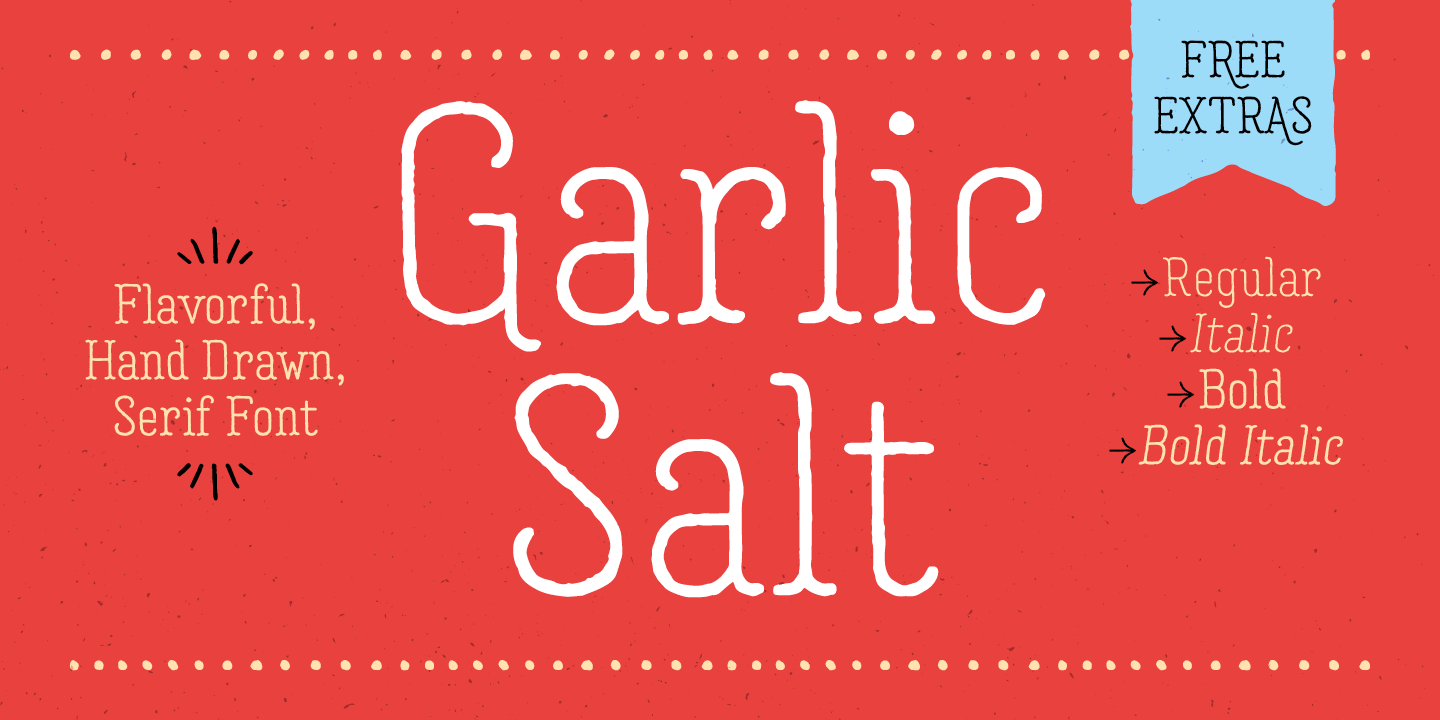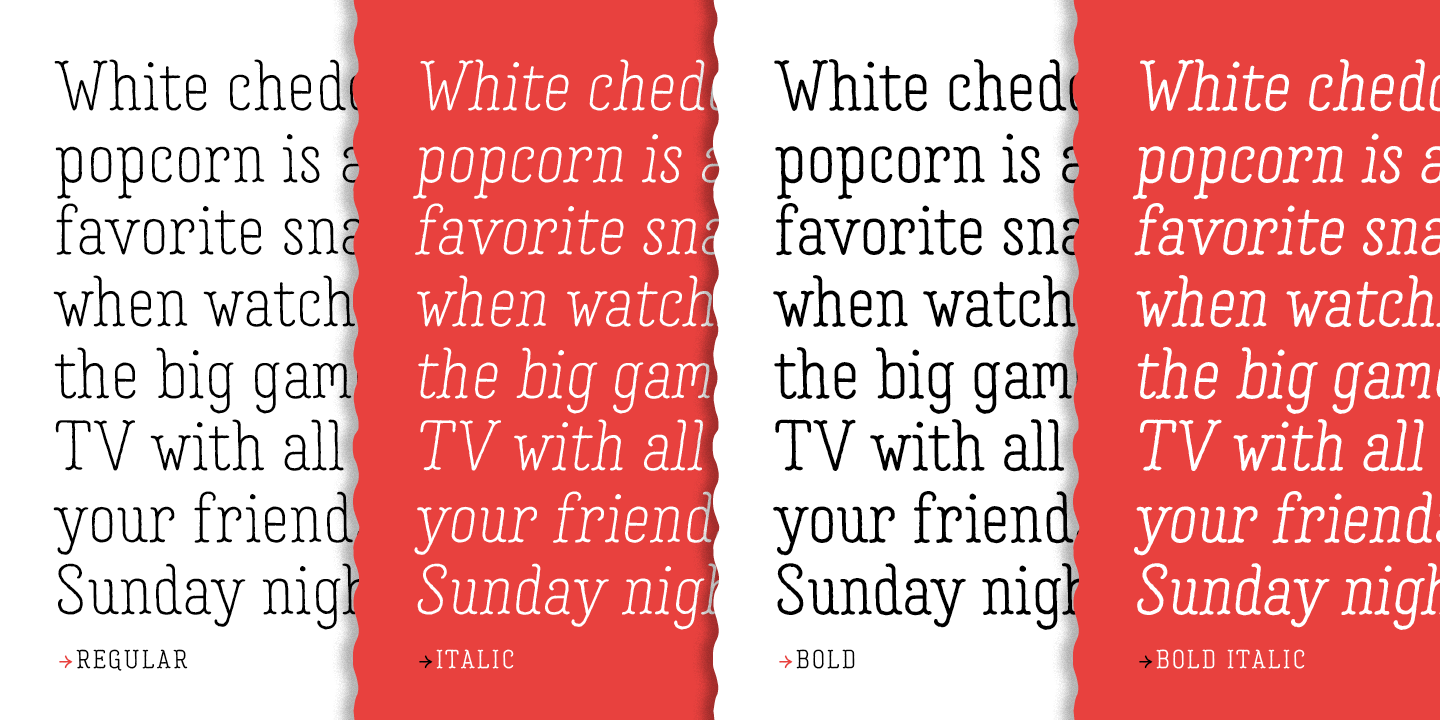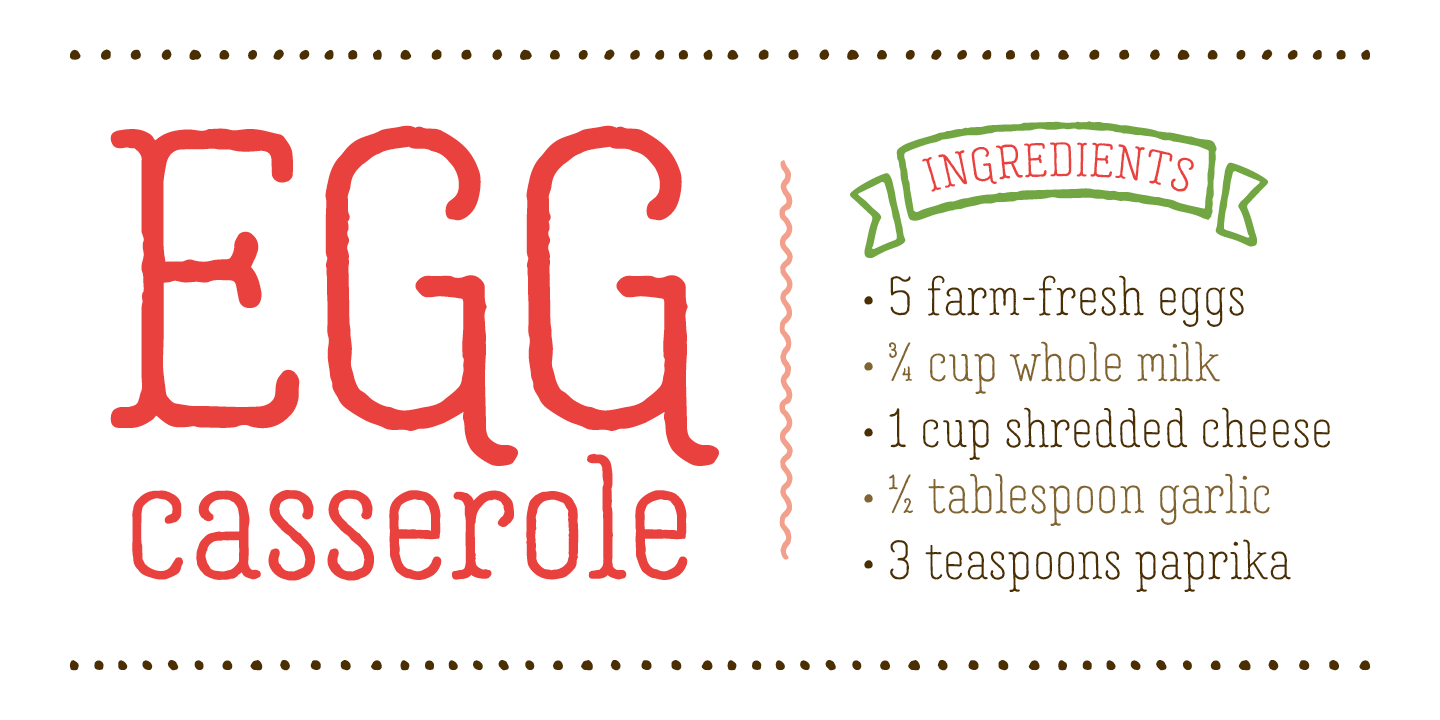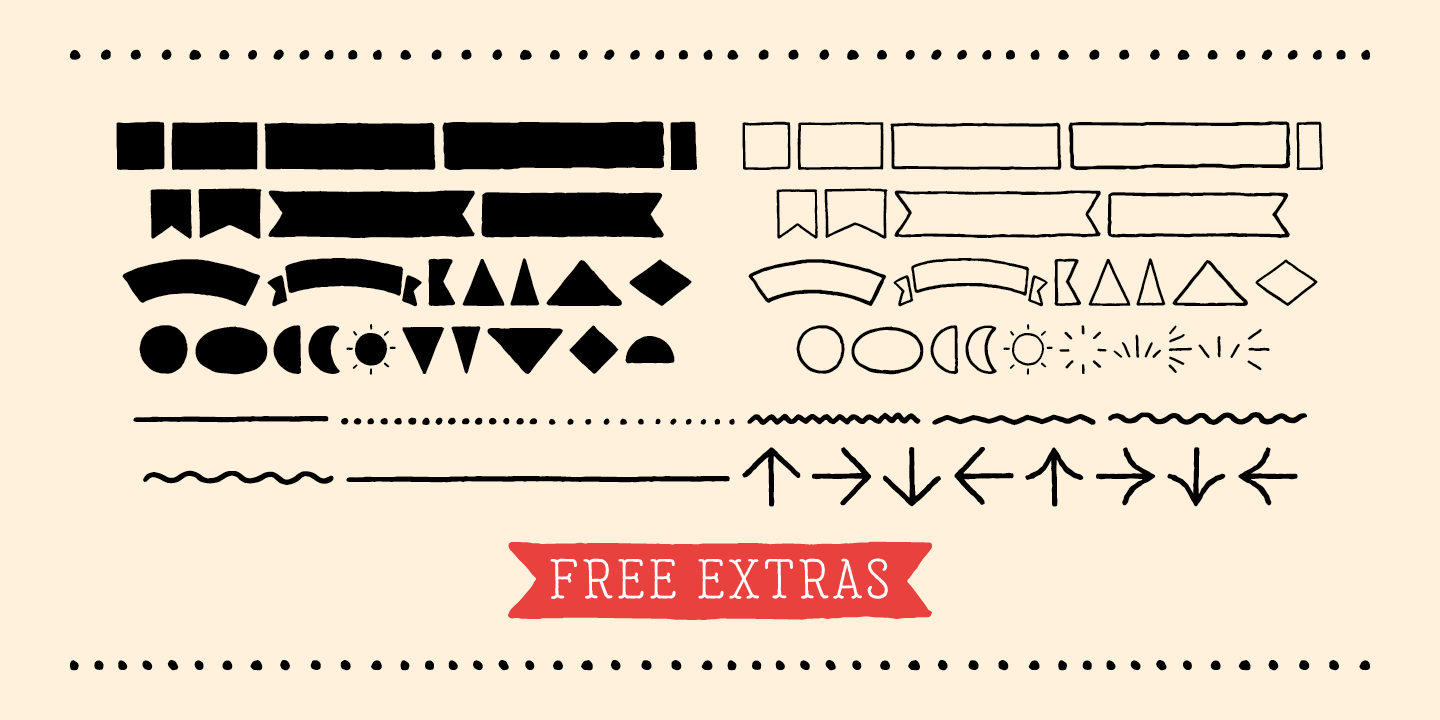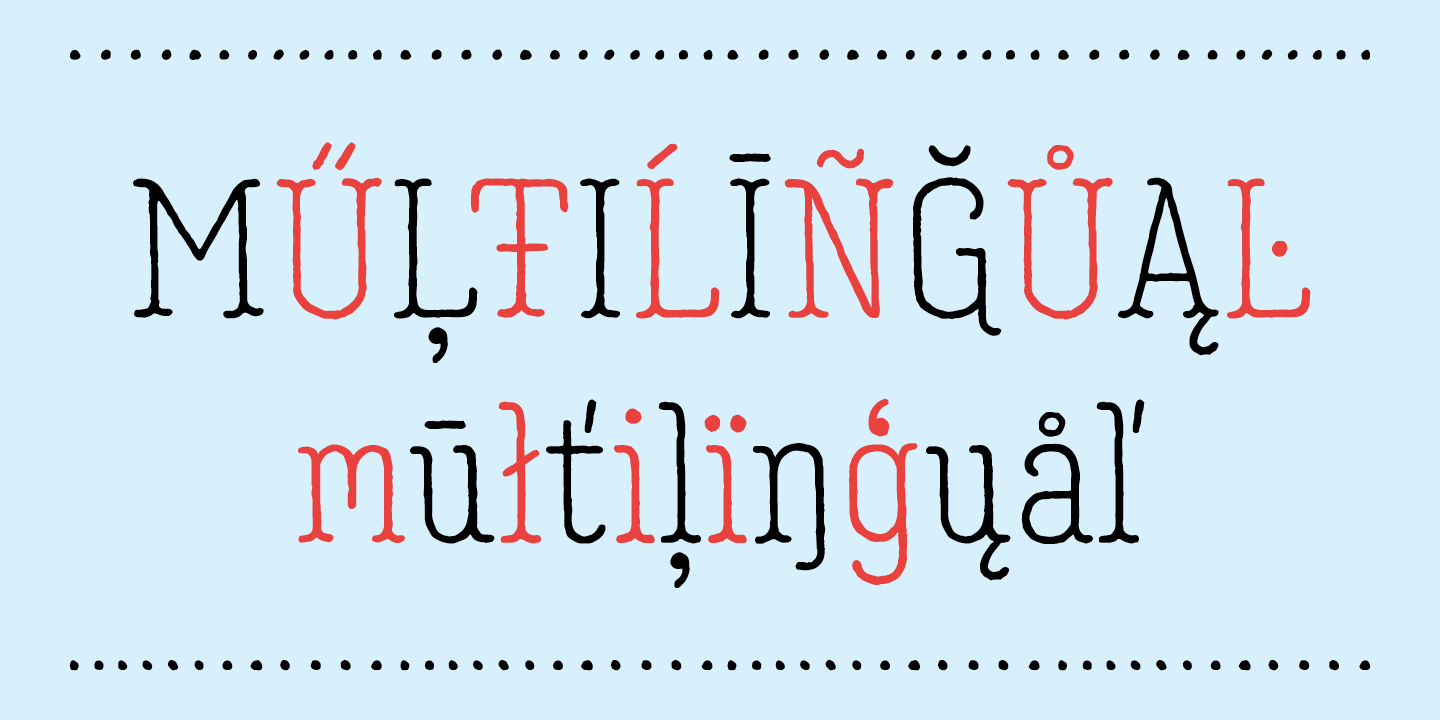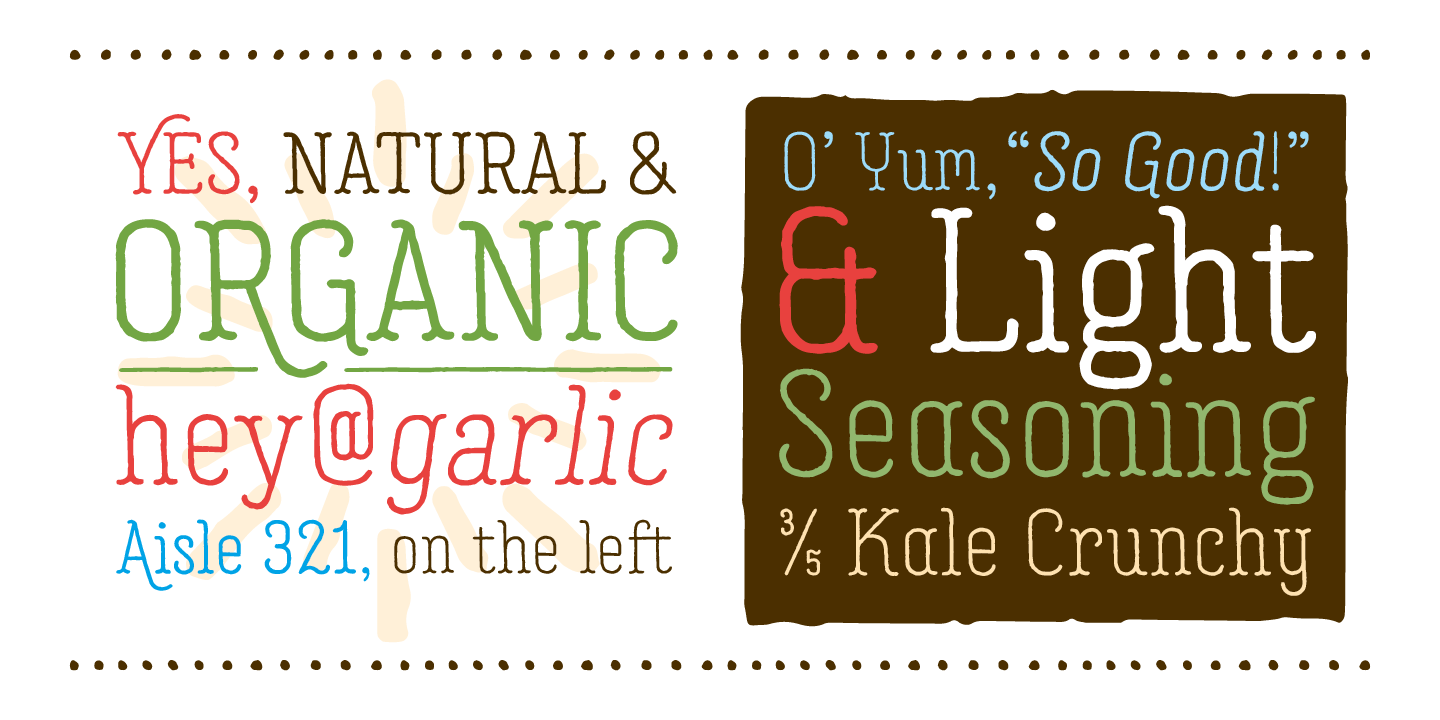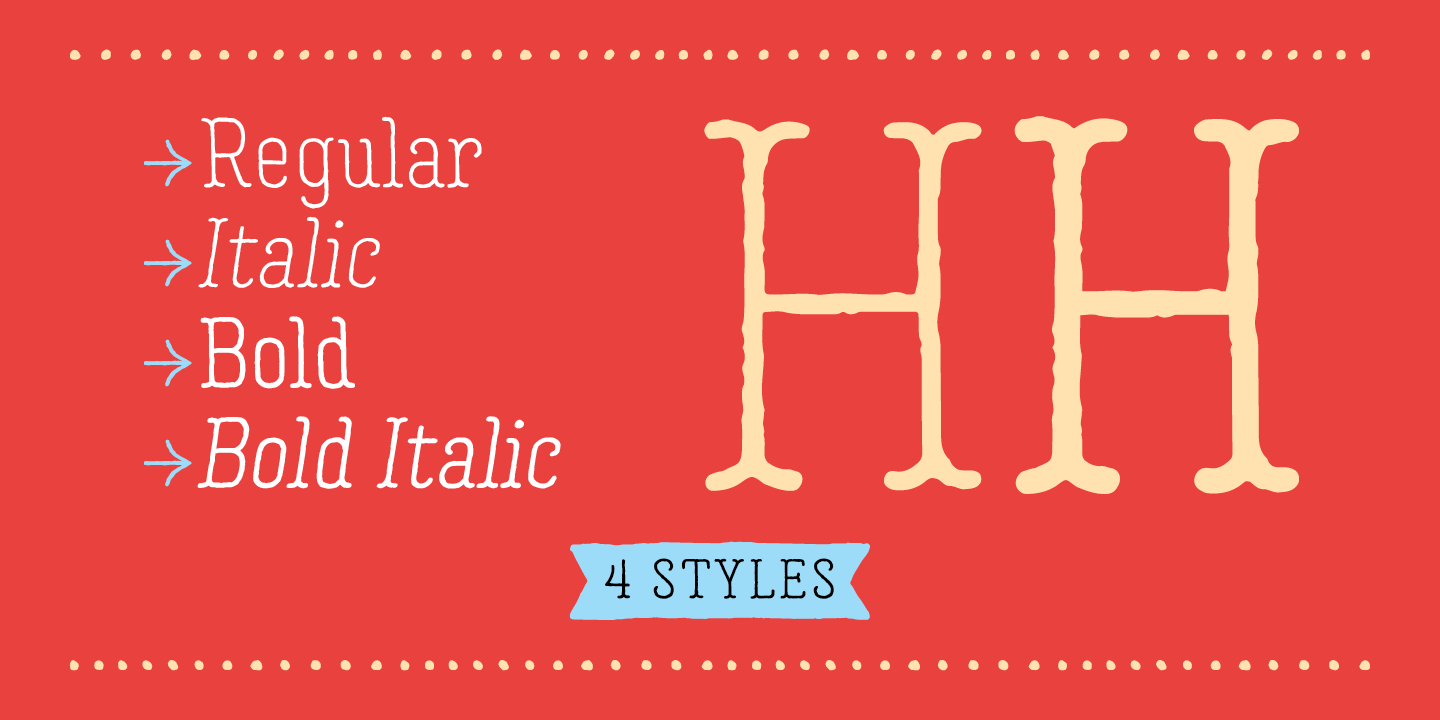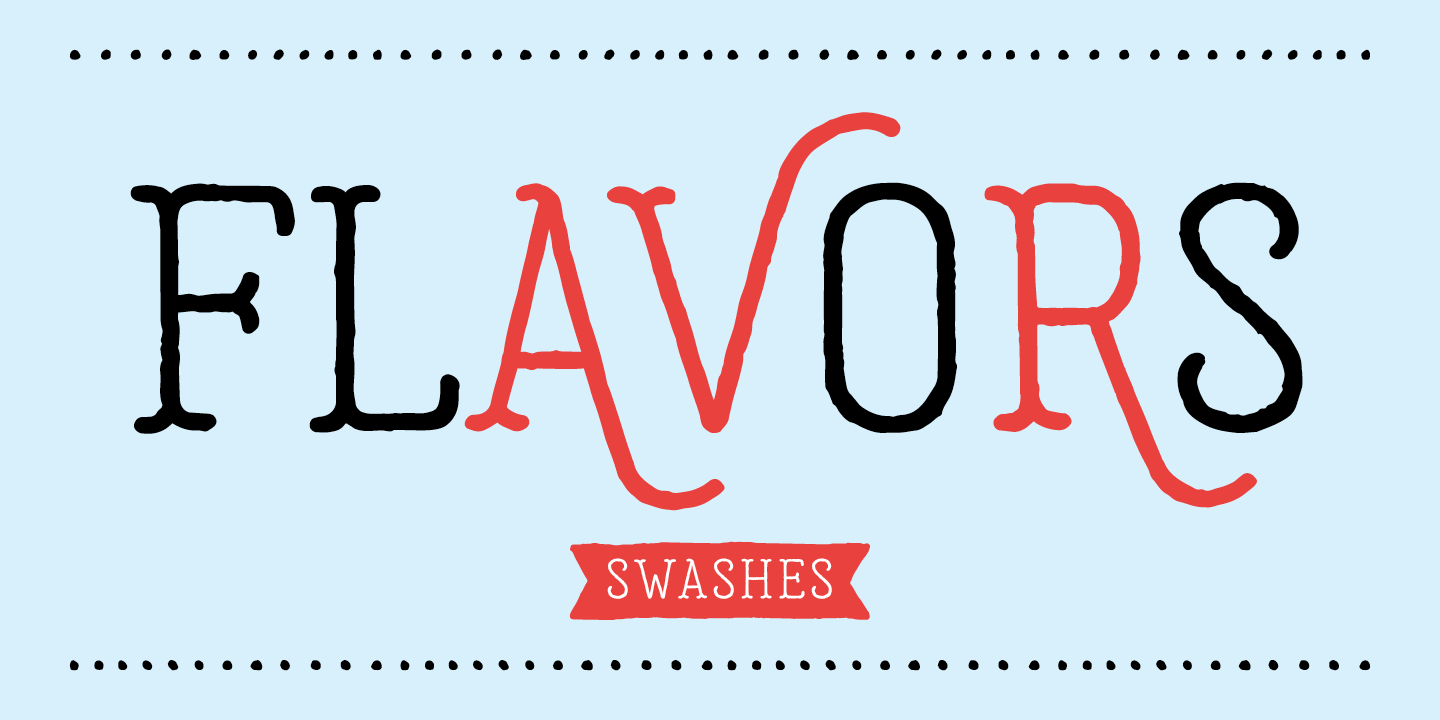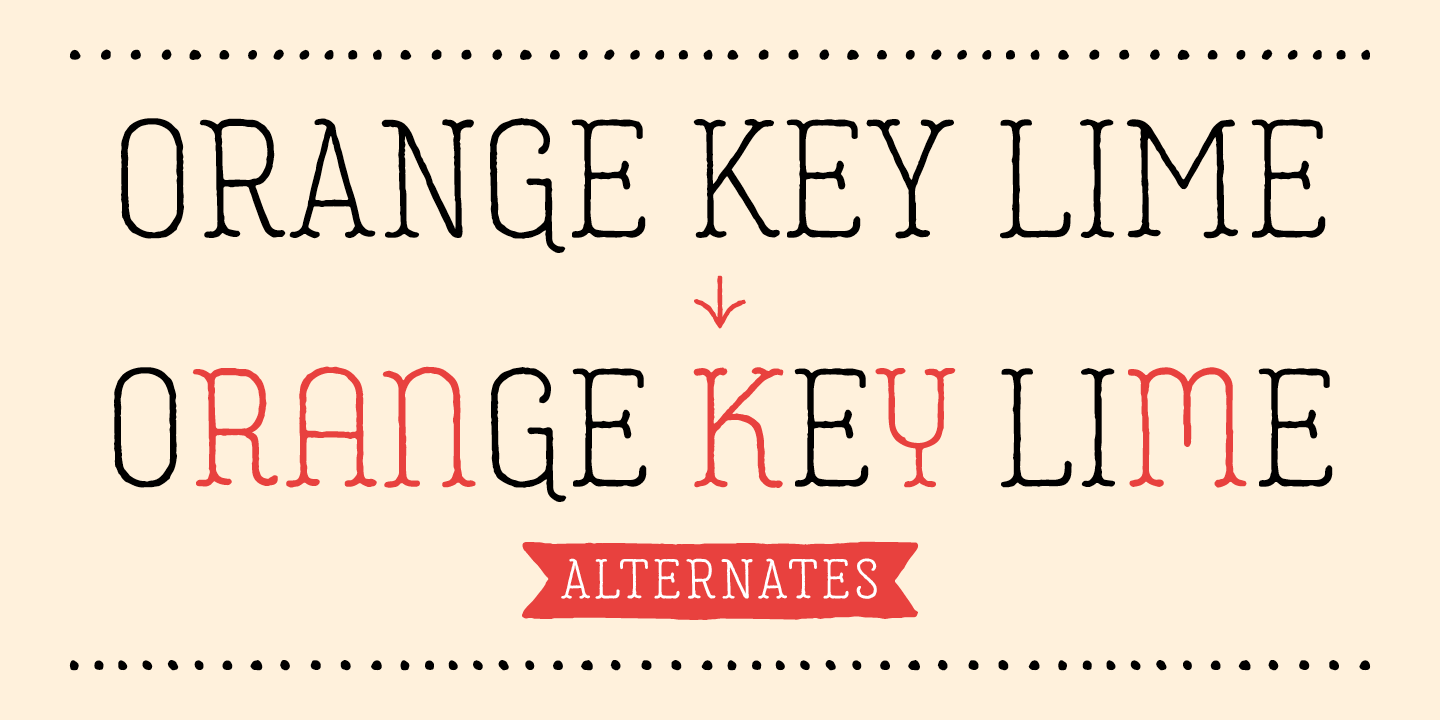
Garlic Salt is a flavorful, hand drawn, serif font family. Drawn with a single marker pen, it has a monoline appearance giving it a distinct mix of whimsical and modern qualities.
Choose from the regular weight or a slightly thicker line in the bold weight. It works great set large as a display font to show off the hand drawn texture, but it also is pleasantly readable set in smaller point sizes.
Garlic Salt also comes with a free Extras font of matching ornaments and dingbats to complement your designs. Special features include stylistic alternates and swashes to enhance the type to your liking.